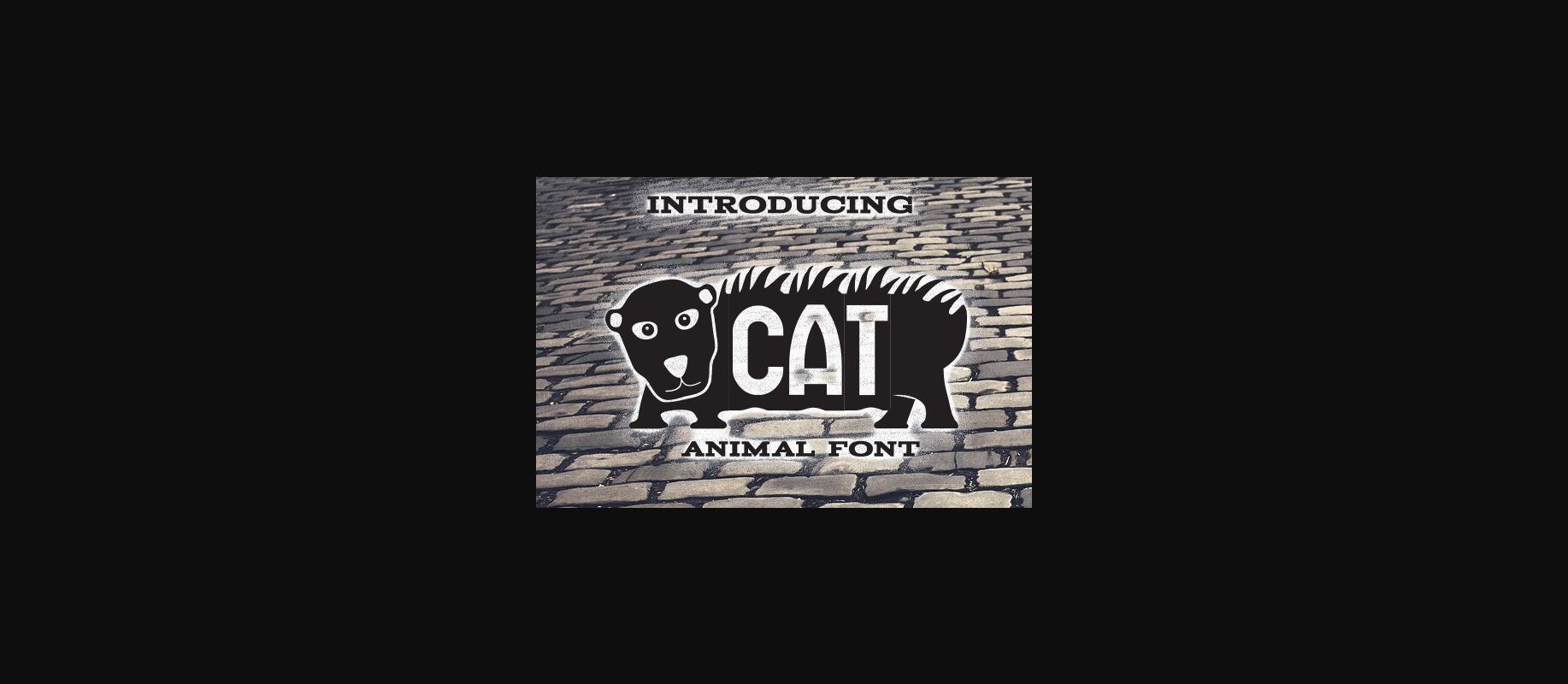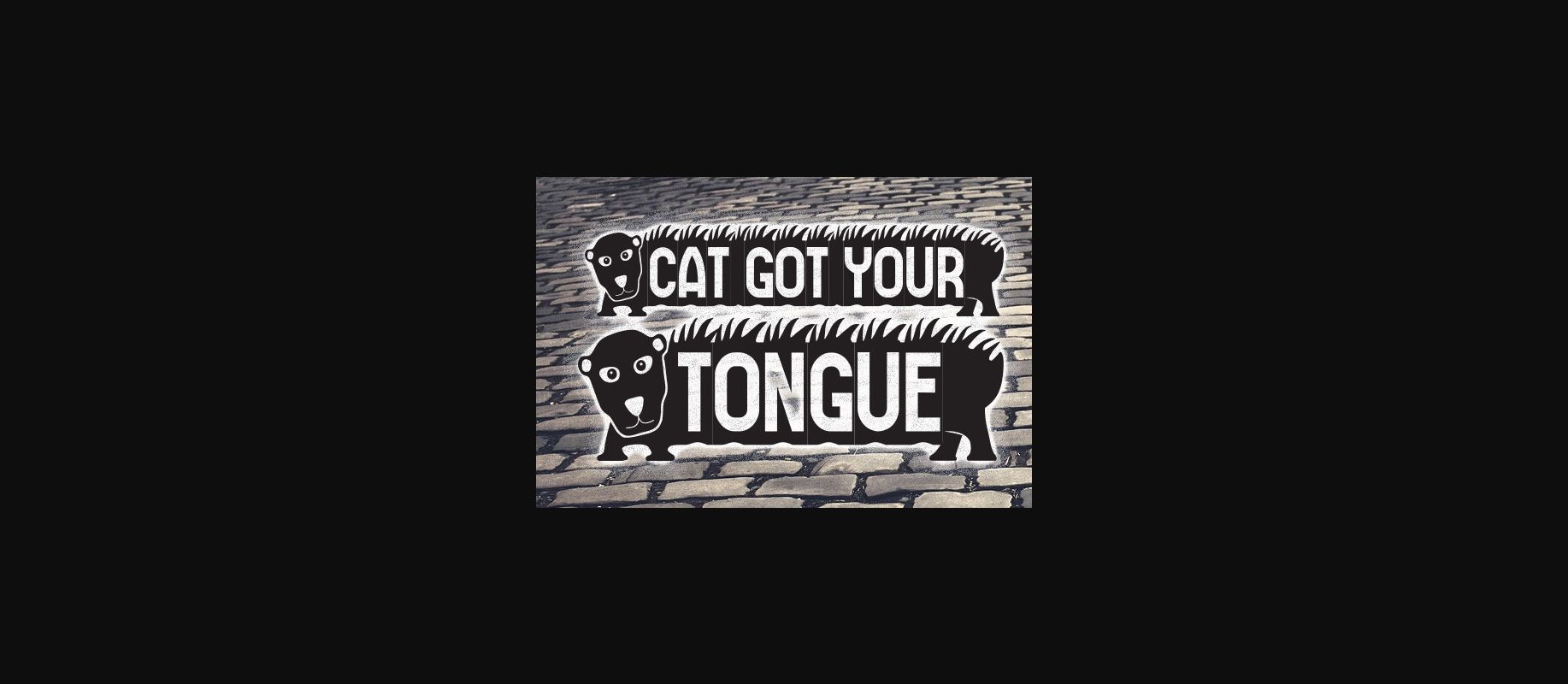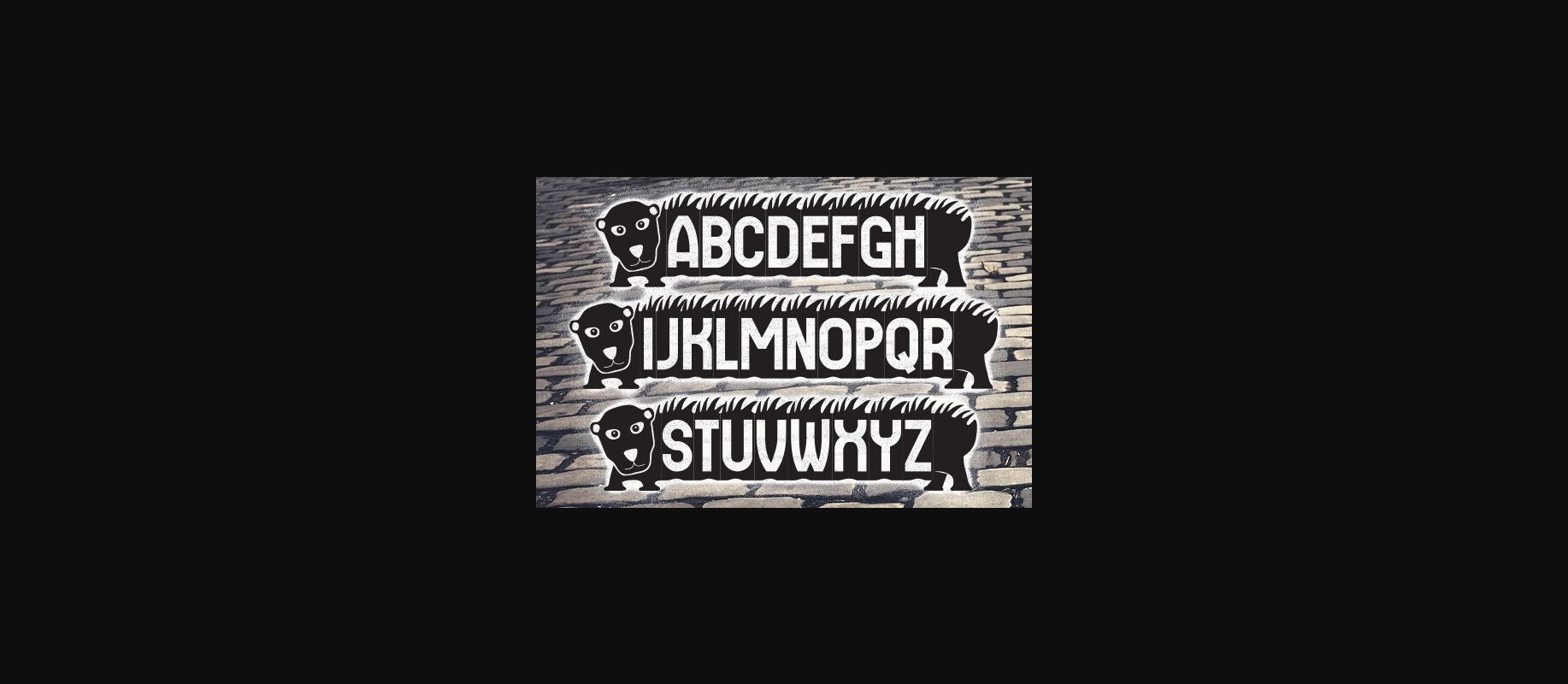
Cat Font
About Cat Font
Cat is a fun and playful decorative font featuring block letters that cleverly form a cat shape when connected. Each letter resembles a block, creating a delightful feline silhouette when combined. The font includes special blocks for the cat’s face and tail, adding extra charm to your designs. Perfect for adding a touch of whimsy to your projects, Cat font is sure to bring a smile to everyone’s face.